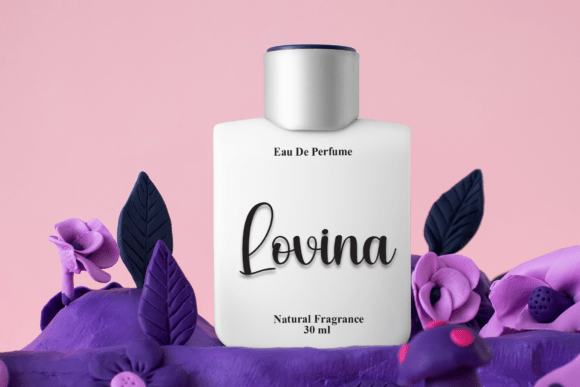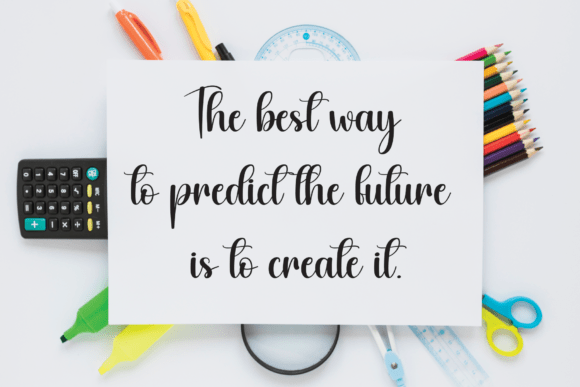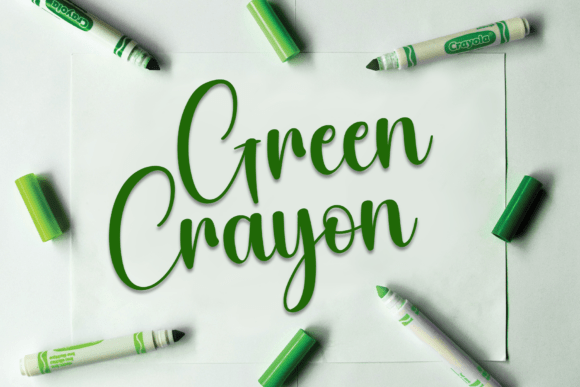
Beach Font
Beach is a bold and carefree script font that embodies the spirit of summer, adventure, and relaxation. Its fun, flowing strokes make it perfect for beach-themed projects, travel branding, social media posts, and tropical invitations. Let your designs shine with Beach’s sunny and laid-back vibe.